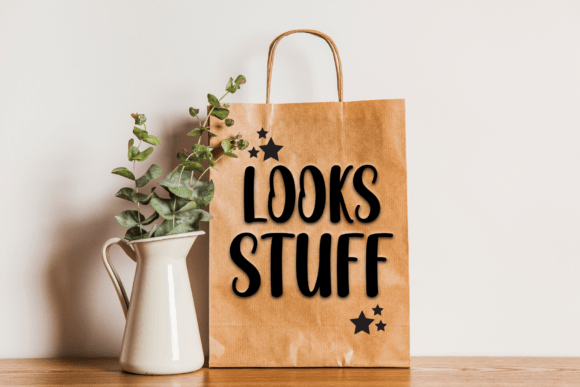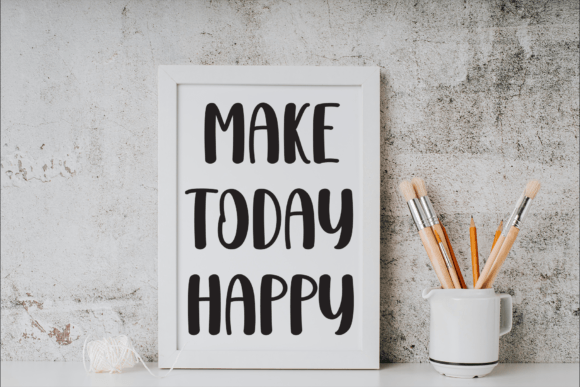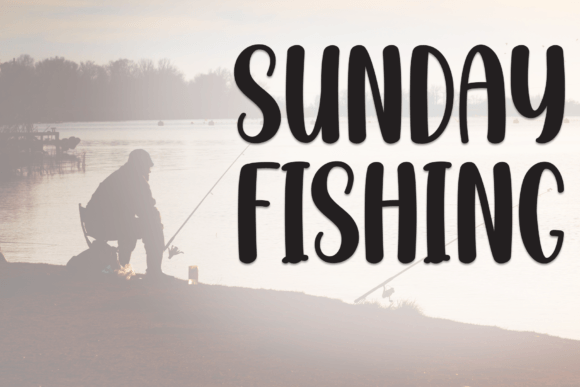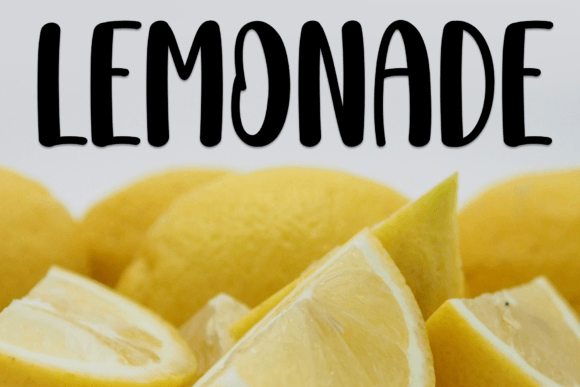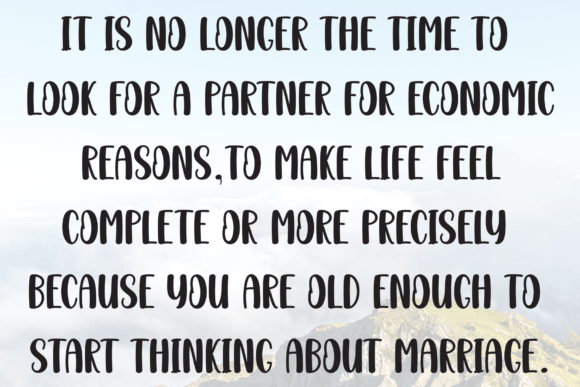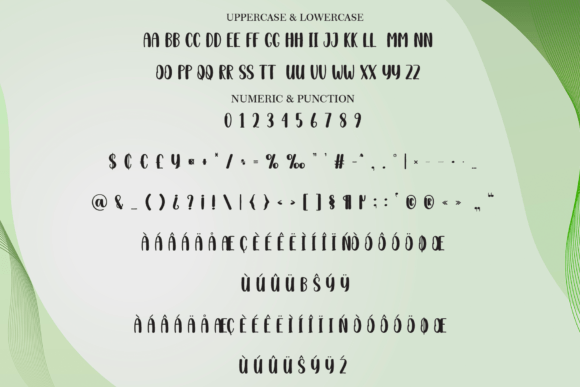
Introducing Exceptional Font: The Sweet and Friendly Handwritten Display Font
Are you looking for a font that can add a touch of warmth and personality to your designs? Look no further than Exceptional Font, a sweet and friendly handwritten display font that’s perfect for creating eye-catching and engaging content. In this article, we’ll take a closer look at Exceptional Font, its features, and how you can use it to elevate your designs.
What is Exceptional Font?
Exceptional Font is a beautiful, handwritten display font that’s designed to bring a touch of fun and playfulness to your designs. With its cute and friendly vibe, this font is ideal for writing wedding invitations, cards, or any other design that might need a fun touch. Whether you’re a designer, crafter, or DIY enthusiast, Exceptional Font is a versatile and easy-to-use font that can help you create stunning content.
Key Features of Exceptional Font
- Handwritten style: Exceptional Font has a beautiful, handwritten style that’s perfect for creating personal and engaging content.
- Cute and friendly vibe: This font has a sweet and friendly vibe that’s ideal for designs that need a touch of warmth and personality.
- Display font: Exceptional Font is a display font that’s designed to make a statement and grab attention.
Use Cases for Exceptional Font
Exceptional Font is a versatile font that can be used in a variety of design projects, including:
- Wedding invitations: This font is perfect for creating beautiful and personalized wedding invitations that will make your guests feel special.
- Cards and stationery: Exceptional Font is ideal for creating cute and fun cards and stationery that will add a touch of personality to your correspondence.
- Social media graphics: This font can be used to create eye-catching social media graphics that will help you stand out from the crowd.
- DIY projects: Exceptional Font is perfect for DIY enthusiasts who want to add a personal touch to their projects, such as scrapbooking, crafting, and more.
Benefits of Using Exceptional Font
There are many benefits to using Exceptional Font in your designs, including:
- Unique and personalized look: This font will give your designs a unique and personalized look that will help you stand out from the crowd.
- Easy to read: Exceptional Font is easy to read, even at small sizes, making it perfect for a variety of design projects.
- Versatile: This font can be used in a variety of design projects, from wedding invitations to social media graphics.
- Fun and playful: Exceptional Font has a fun and playful vibe that’s perfect for designs that need a touch of whimsy.
Tips for Using Exceptional Font
Here are some tips for using Exceptional Font in your designs:
- Use it sparingly: Exceptional Font is a display font, so it’s best to use it sparingly to make a statement.
- Pair it with other fonts: This font pairs well with other fonts, so feel free to experiment with different combinations.
- Experiment with colors: Exceptional Font looks great in a variety of colors, so don’t be afraid to experiment and find the perfect hue for your design.